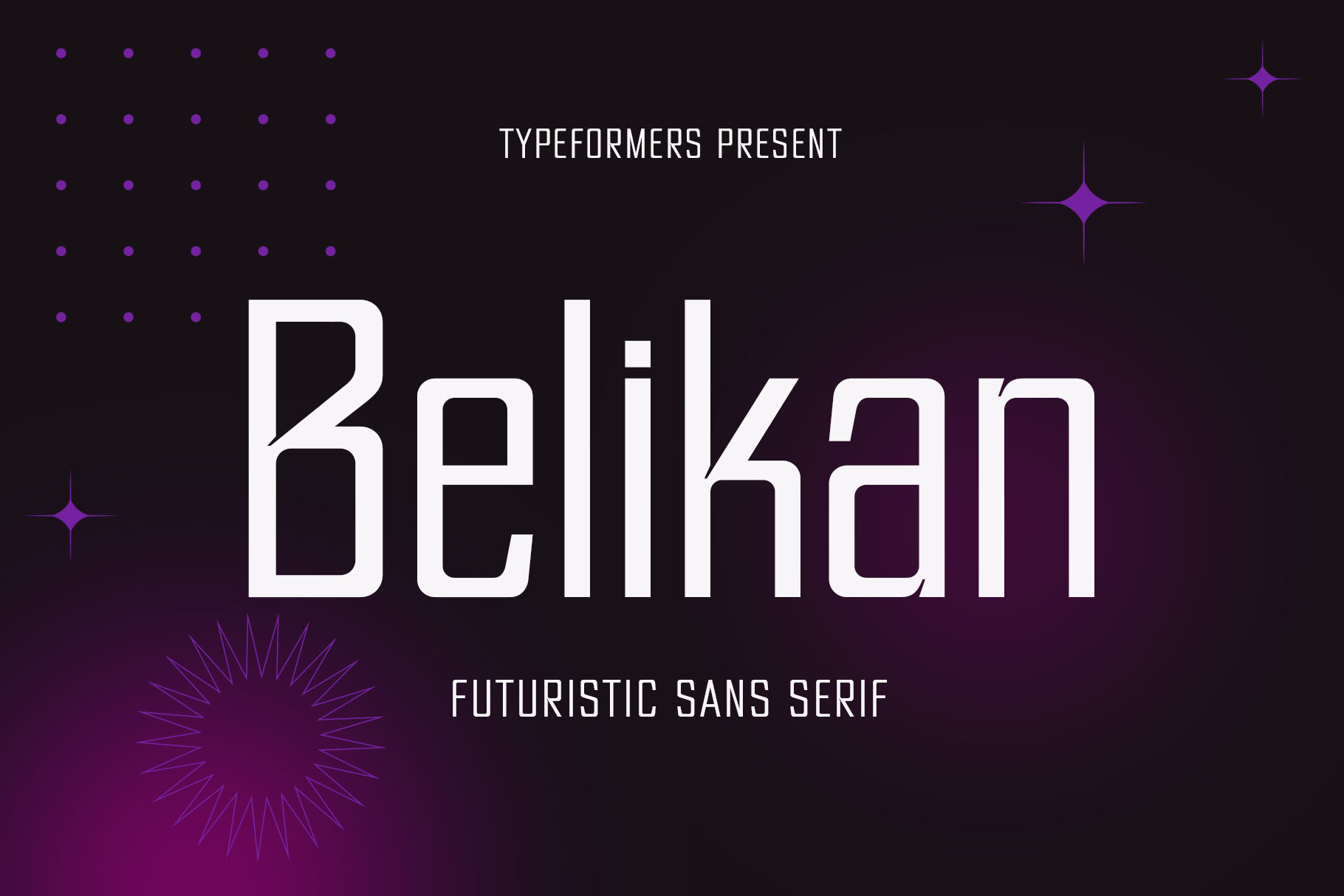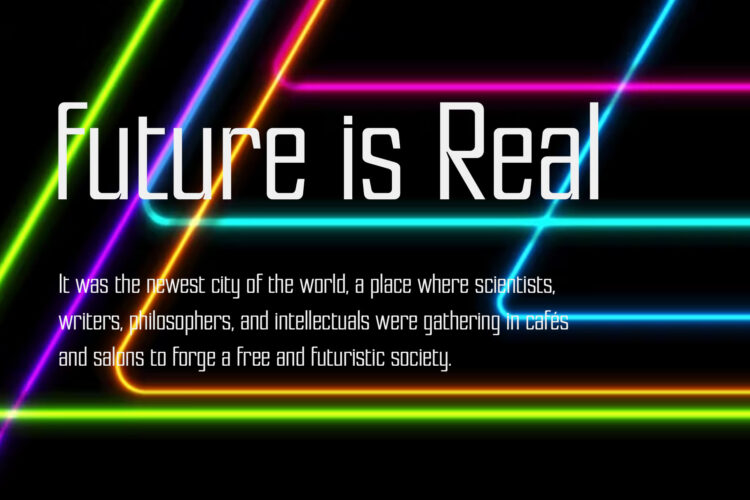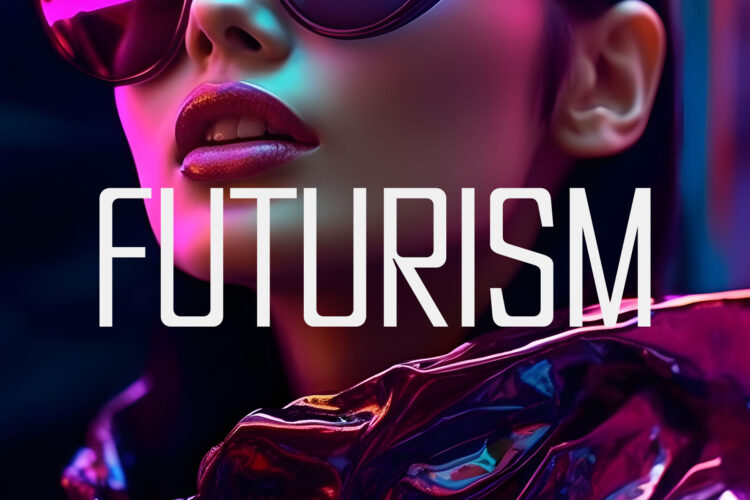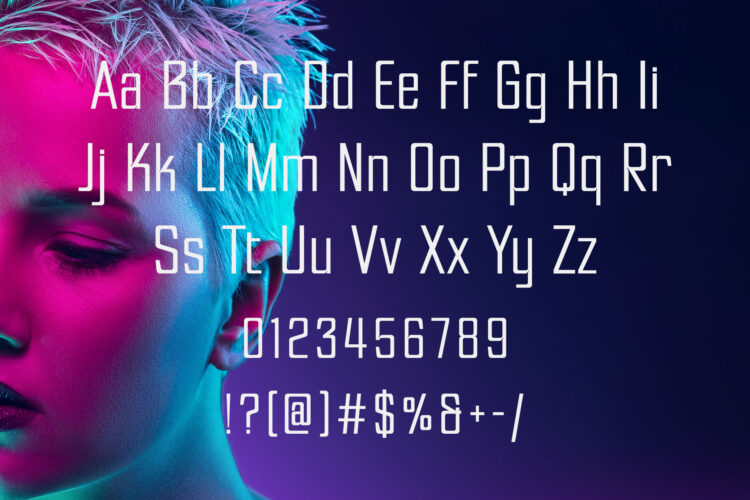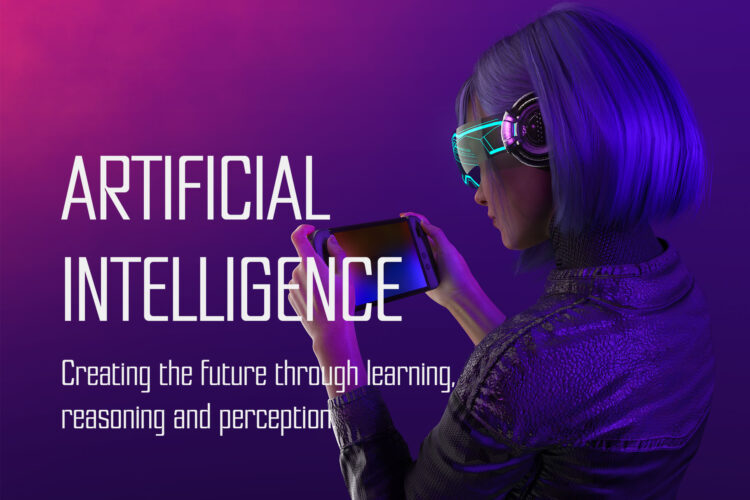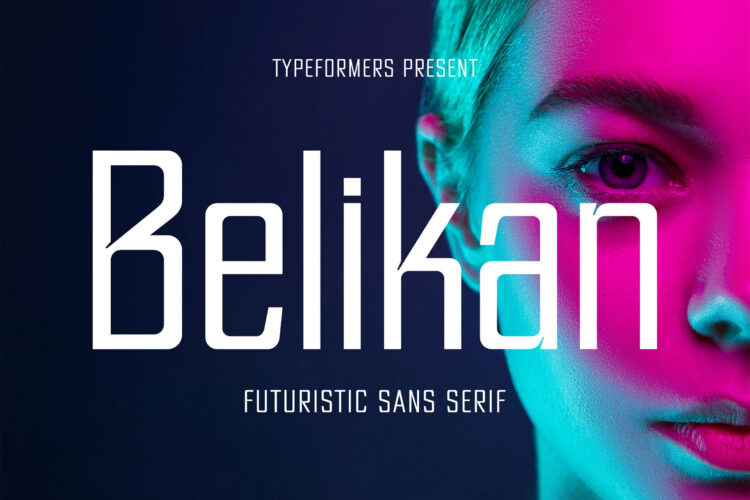
Introducing Belikan – Futuristic Sans Serif.
Belikan is a modern and simple font, best used as a display for headings, logos, branding, magazines, product packaging and invitations.